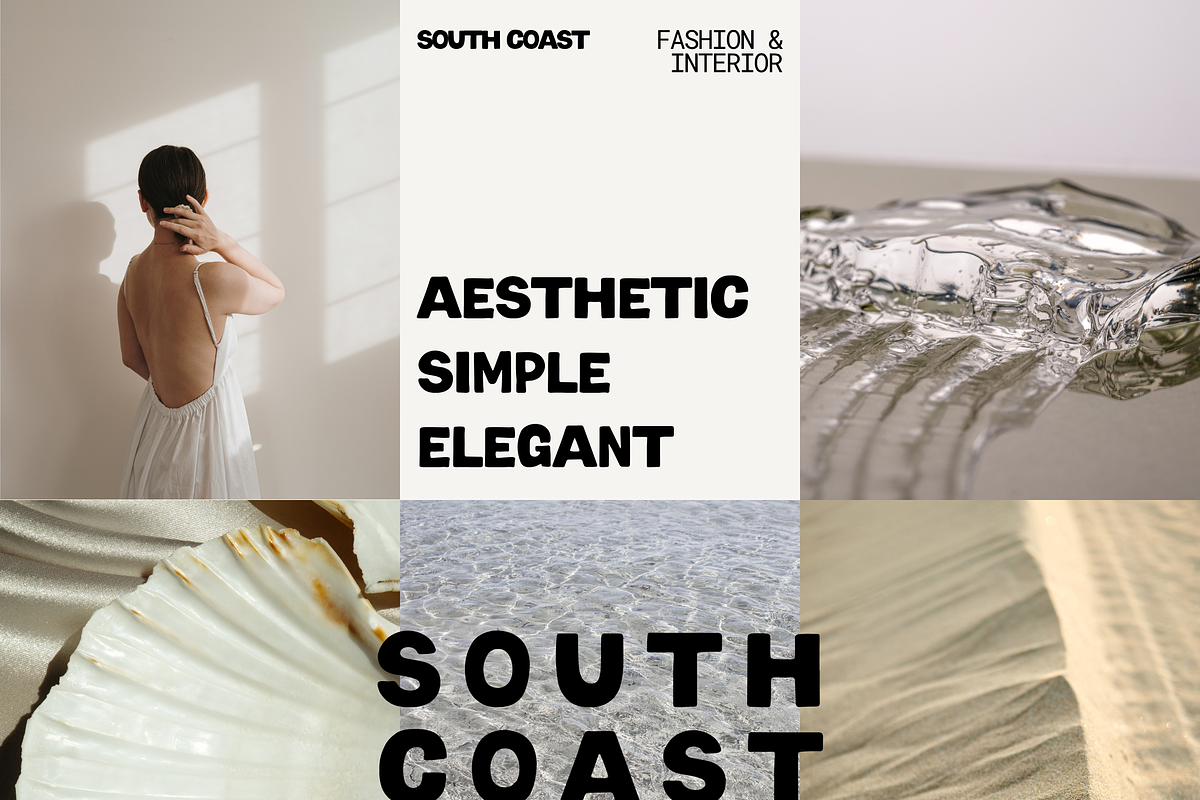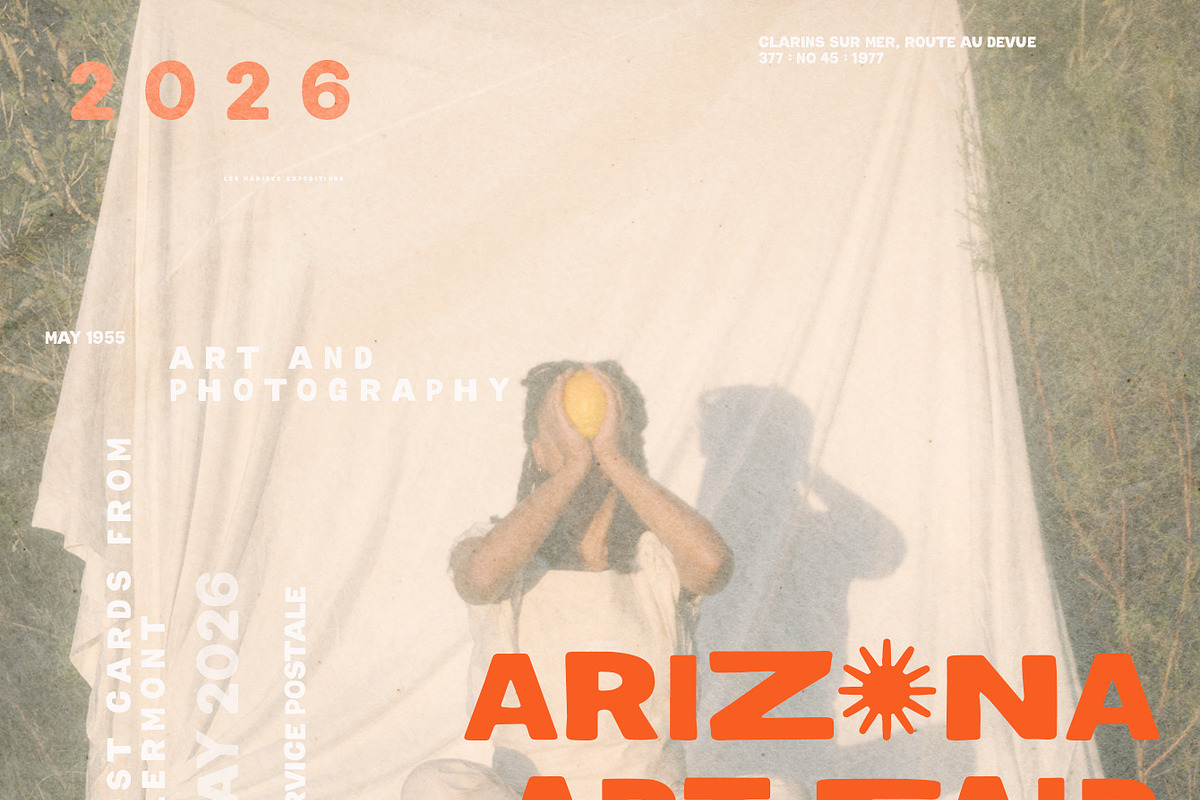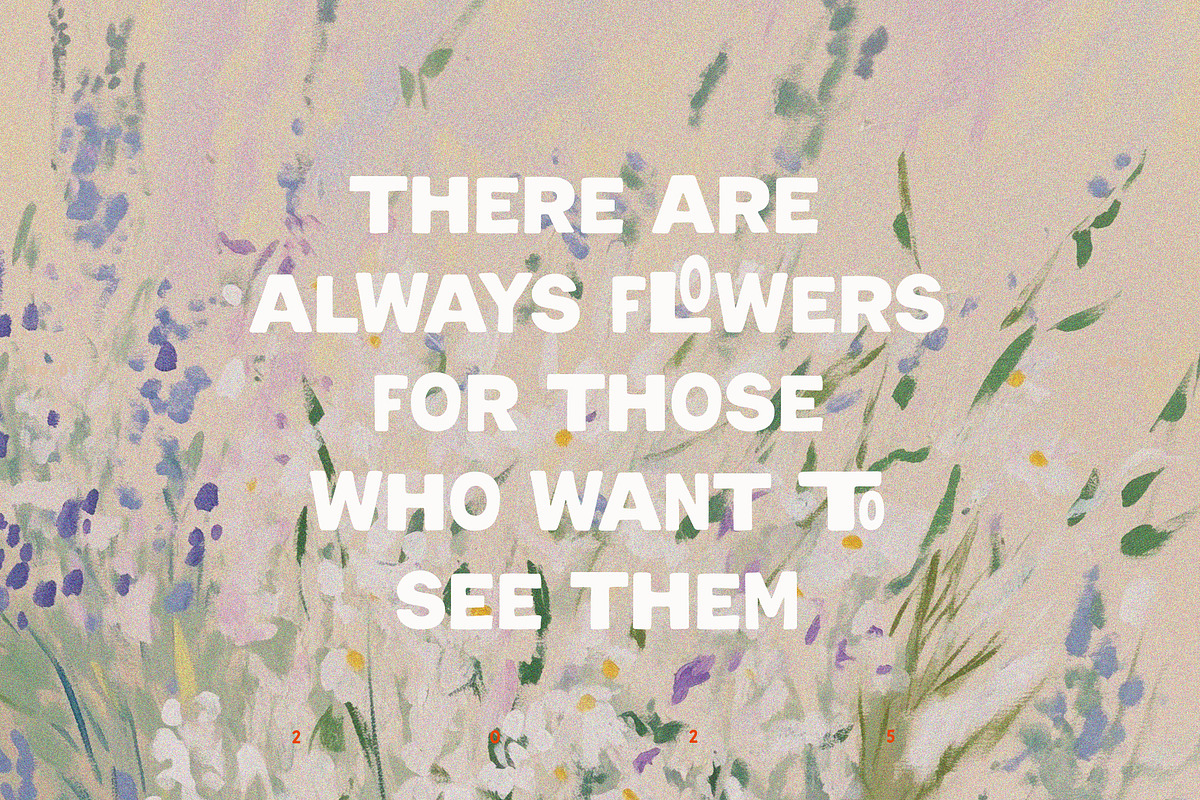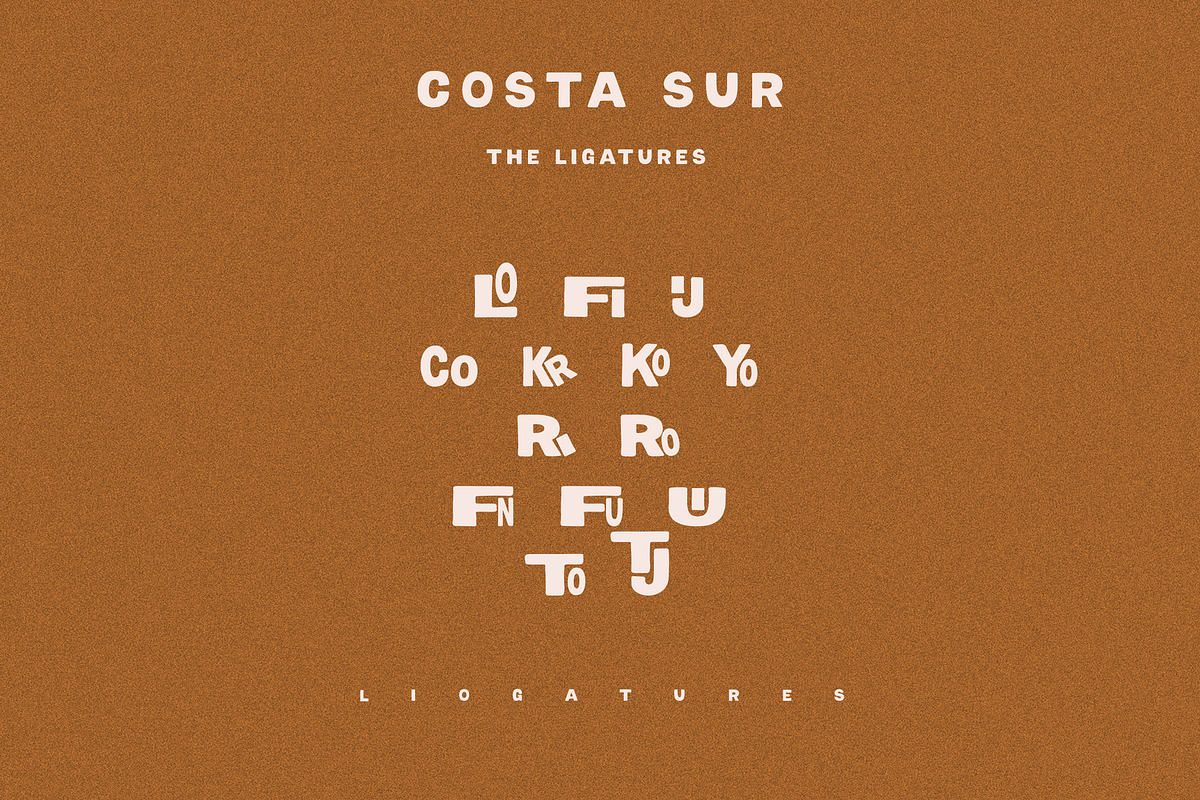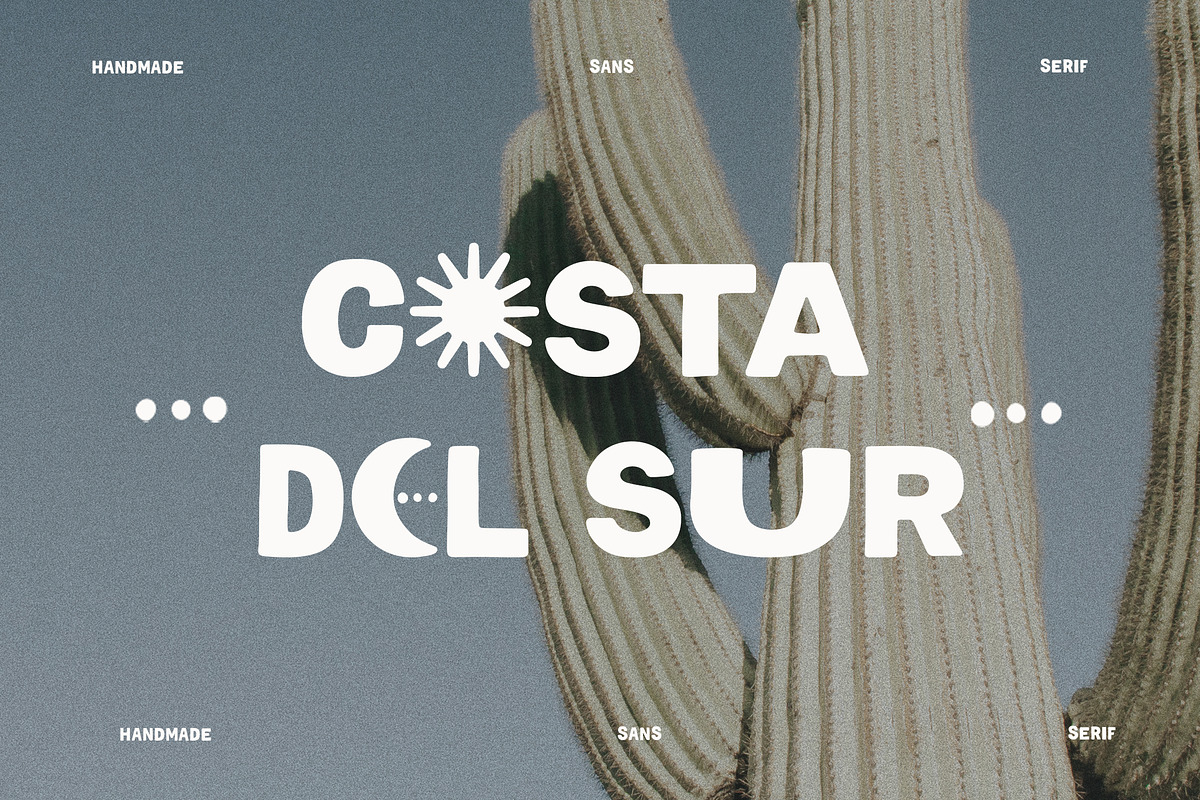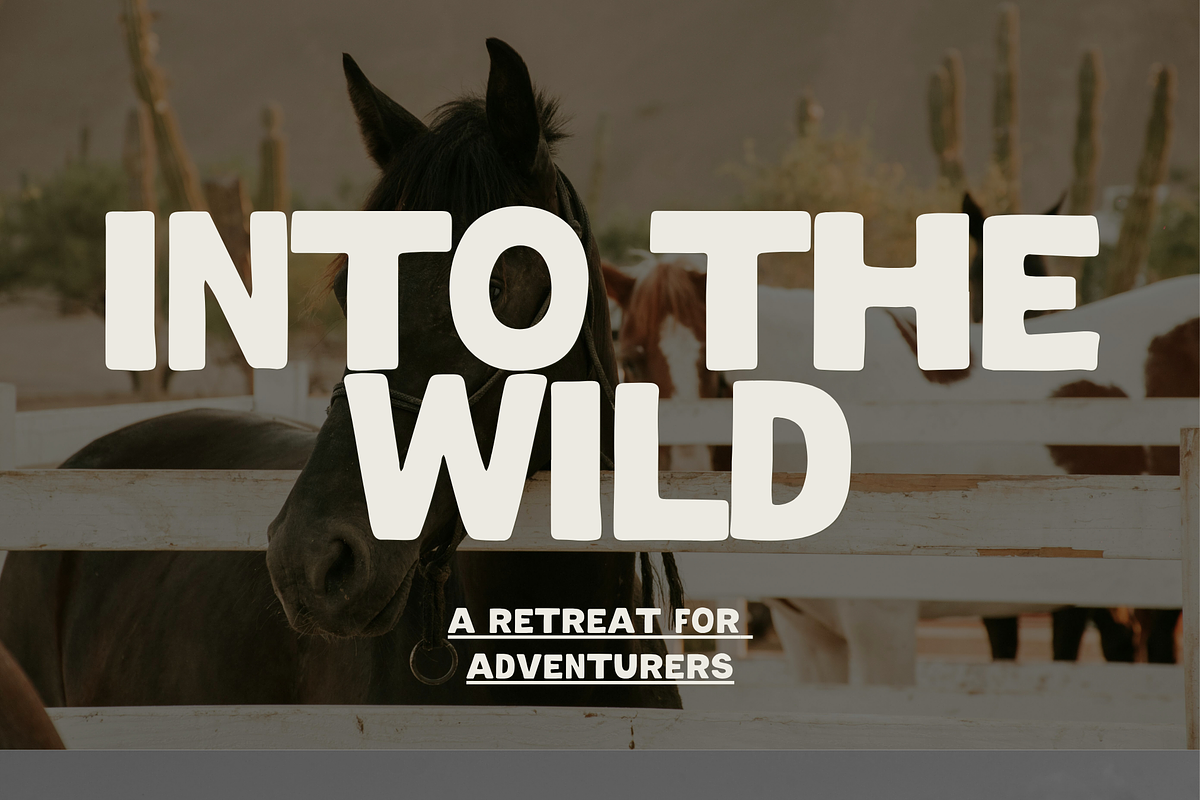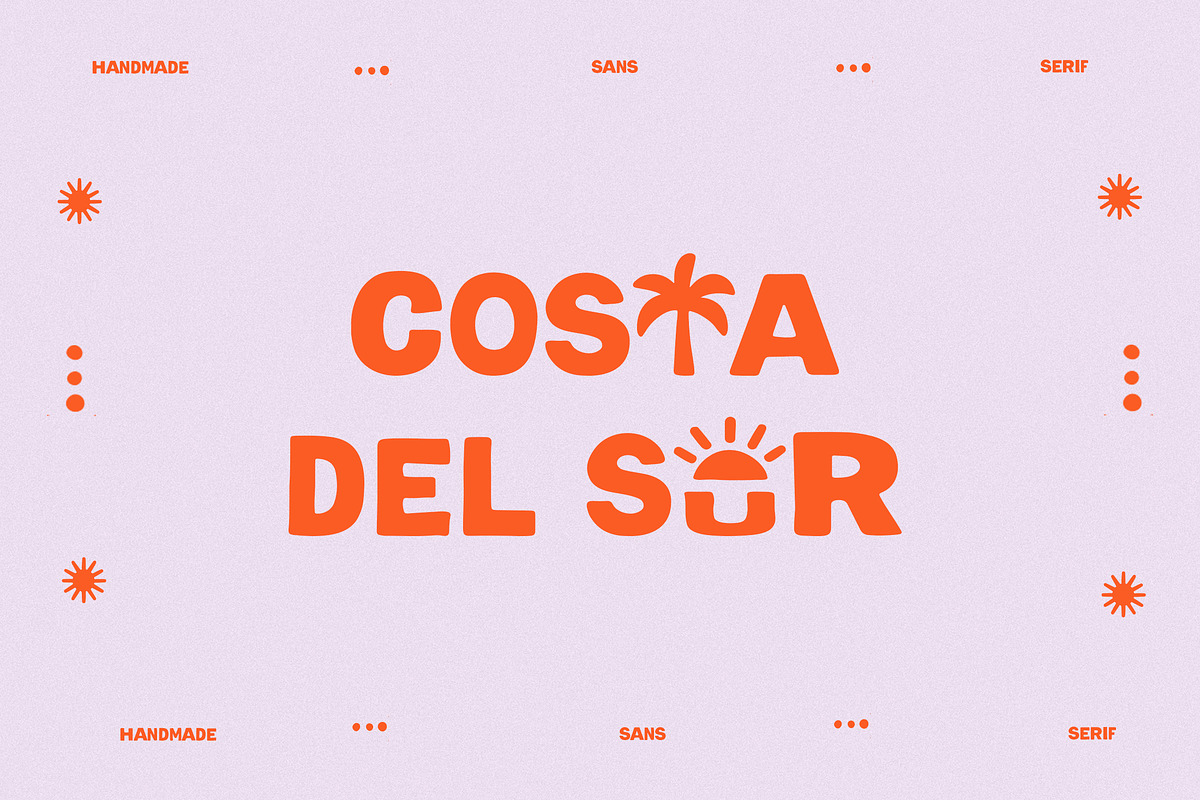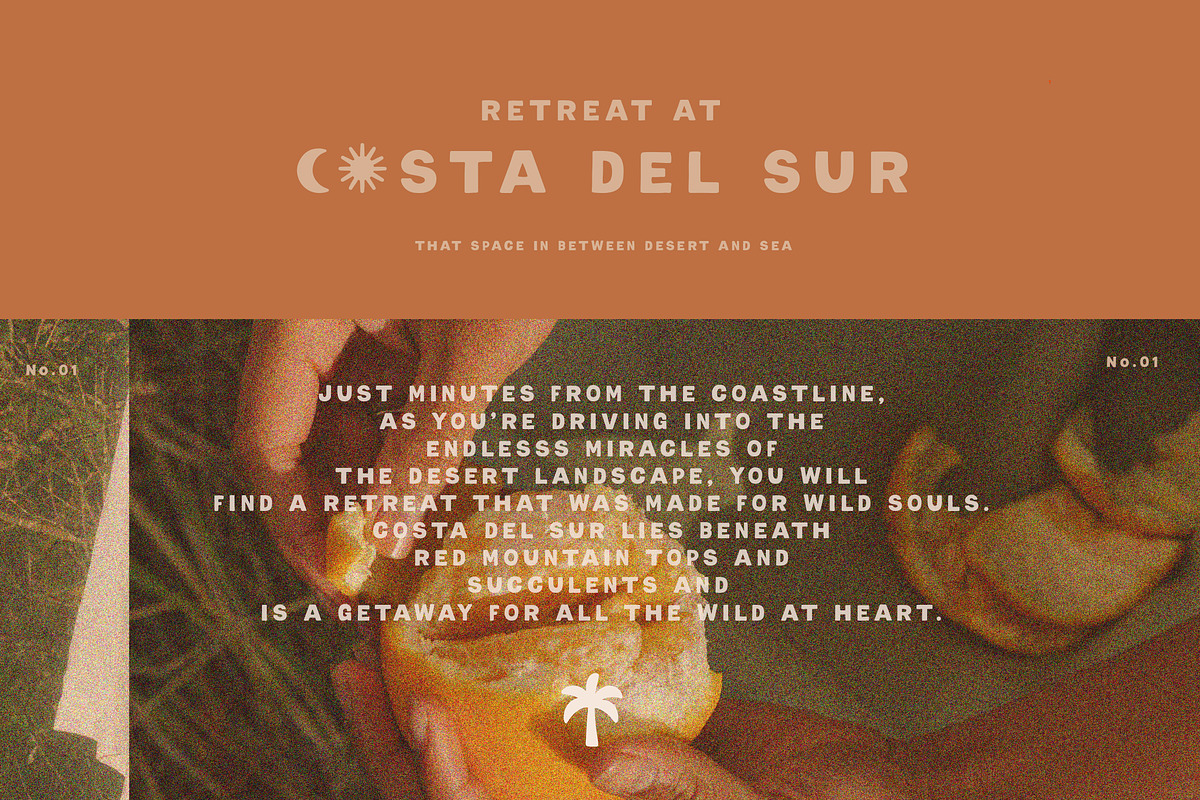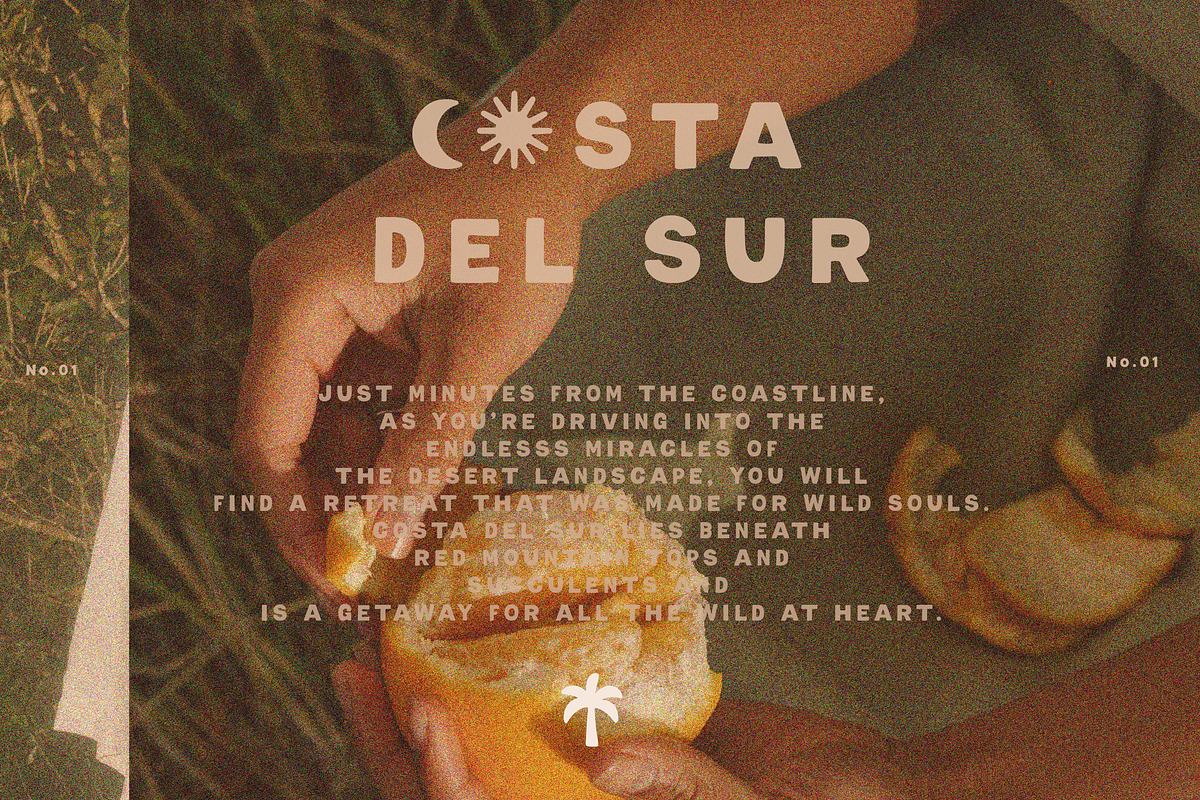
Handwritten Coastal Symbol Font
Meet your new favorite bold handmade sans serif – sun-drenched, free-spirited, and full of coastal charm. This font mixes a strong, confident look with a soft handwritten touch, perfect for brands that want to feel both grounded and effortlessly cool. Inspired by bohemian summers and handmade imperfection, it includes playful ligatures and unique symbol alternates like palm trees, sunbursts, and flowers. Whether you're designing dreamy titles, relaxed body text, or vibrant social content – this font brings that breezy, Nu Edge vibe to life! To make your designs even more effortless, you'll also get 20 boho summer prints included. What's included: - CostaSur.Otf - 20 Prints & Poster Designs (Jpeg, 5000x7000px, 300dpi) Hope you love this set as much as I loved creating it—can’t wait to see what you make. Happy creating!